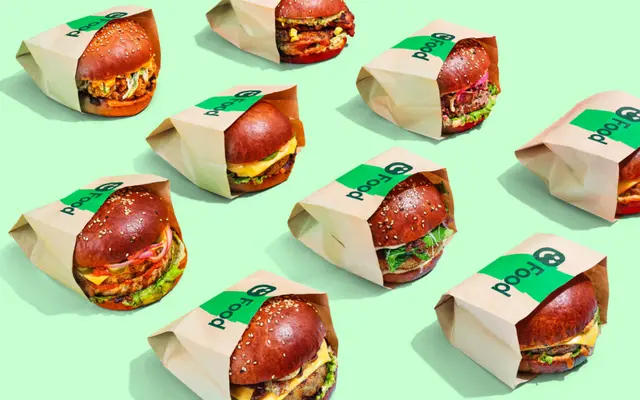
Radial specimen from Gradient
A humanist sans with geometric roots and variable font support, spanning five weights from Regular to Black with matching italics.
Built on a concept of motion, Radial began as a geometric exercise and developed into something warmer and more characterful. Five weights with matching italics give it range from heavy display work down to small text, and variable font support is baked into the design rather than added as an afterthought. The foundry positions it as equally comfortable on billboards and in footnotes, which the weight spread broadly supports.
Described by the foundry as beginning from a geometric concept but resolving as humanist, with an emphasis on motion and informal geometry, placing it firmly in the humanist sans category.